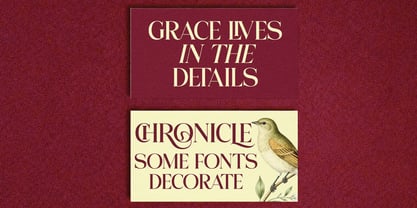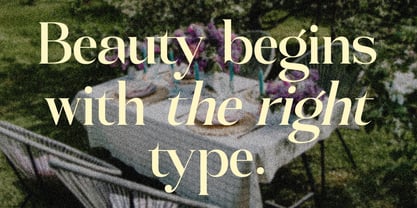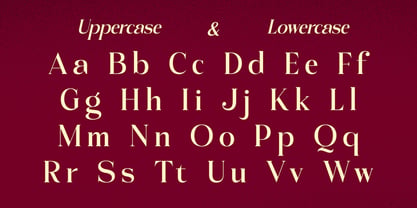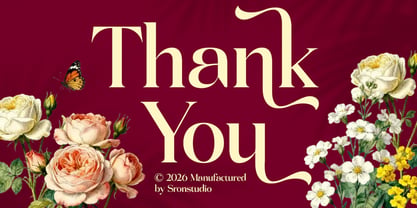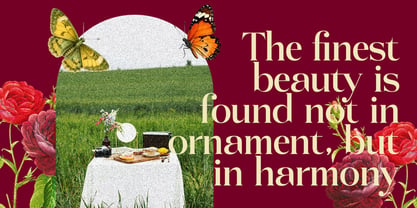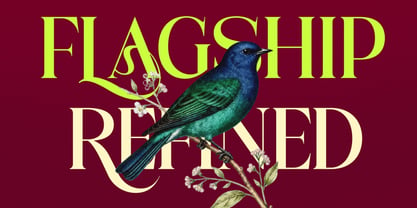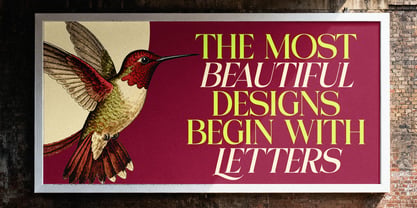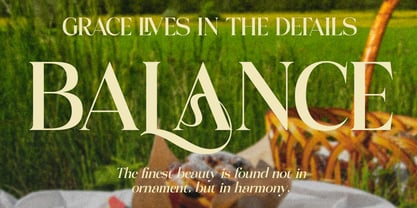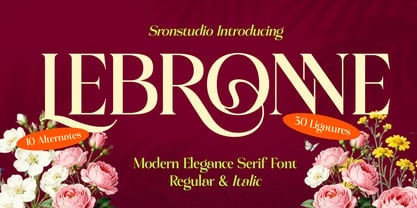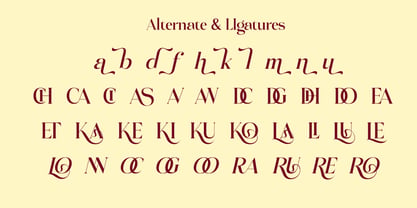
Lebronne
by Sronstudio
The Lebronne Font Family was designed by Muhamad Yusron Billah and published by Sronstudio. Lebronne contains 2 styles and family package options. More about this family
Lebronne is an elegant serif font that embodies sophistication and timeless beauty. With its refined serifs, graceful curves, and balanced proportions, this font brings a luxurious and polished touch to any design. Perfect for high-end branding, editorial layouts, fashion magazines, invitations, and premium packaging, Lebronne delivers a classic yet modern elegance that feels both stylish and enduring. What’s Included: - Alternates & Ligatures - Numerals & punctuation - PUA encoded for easy access - Multilingual support - Works seamlessly on Mac & Windows Thank you very much!
Lebronne